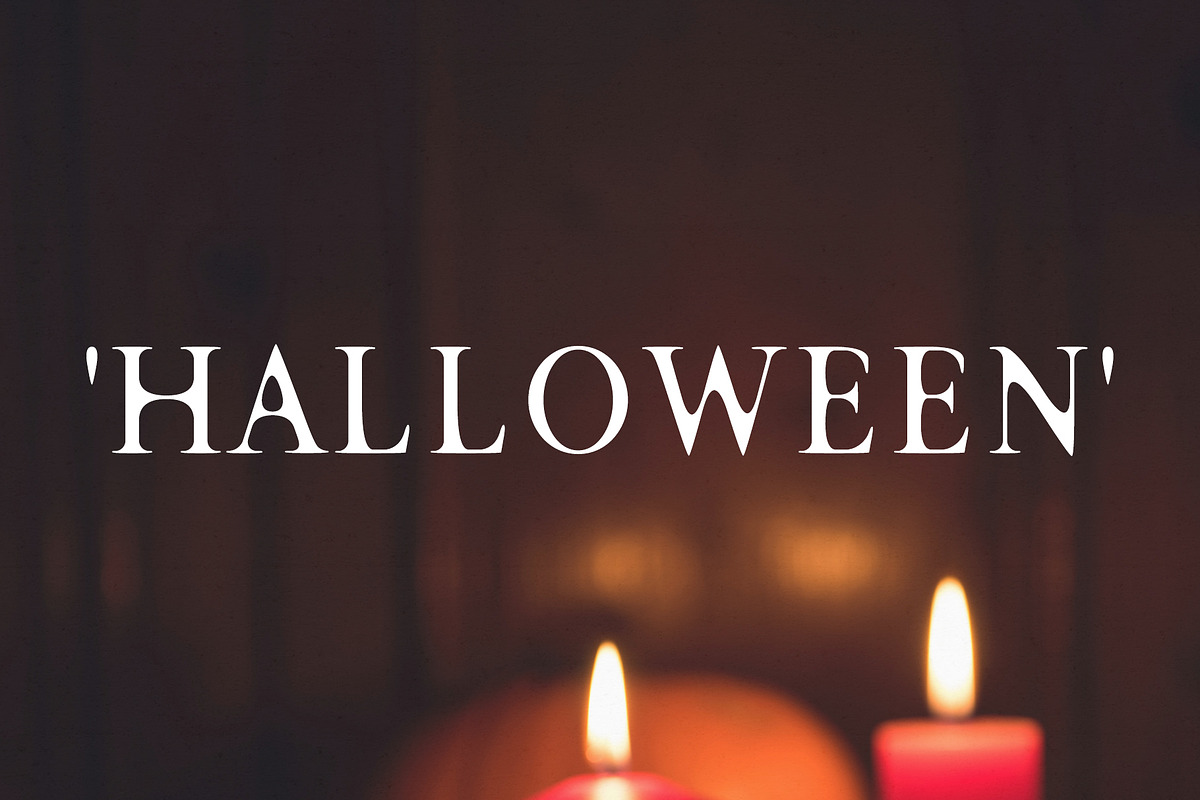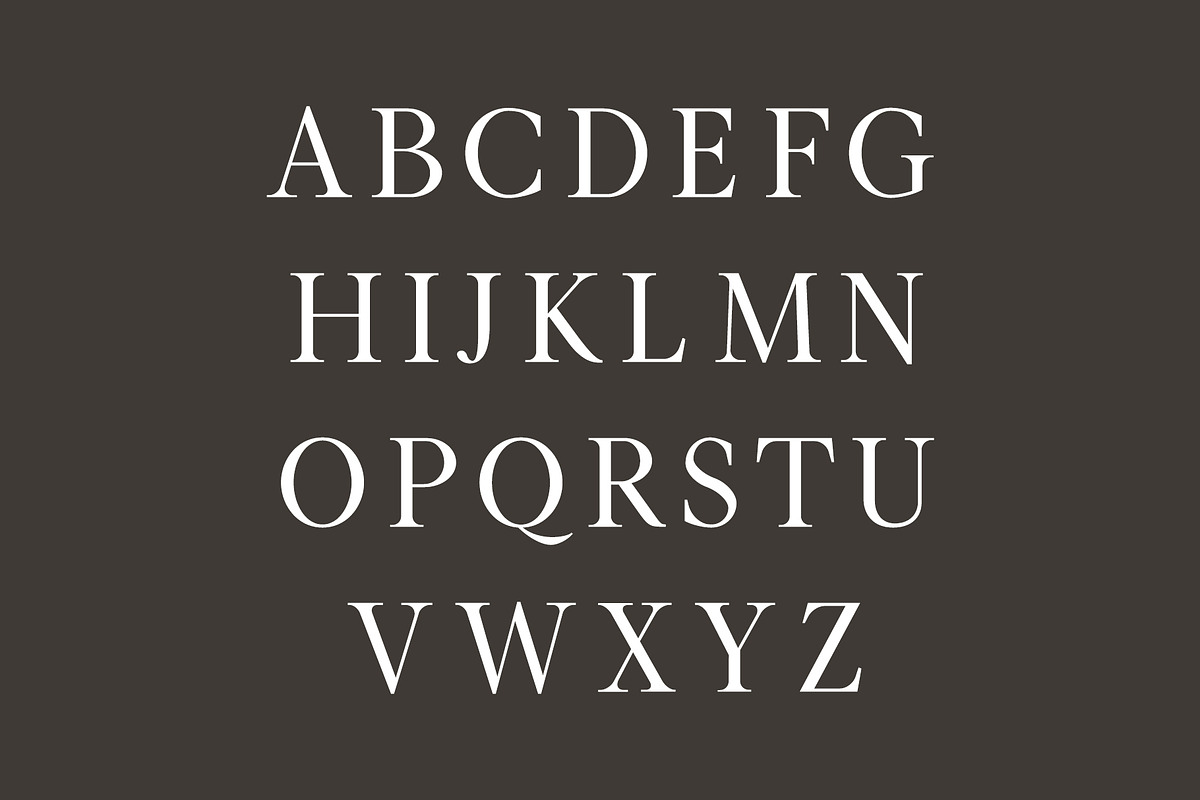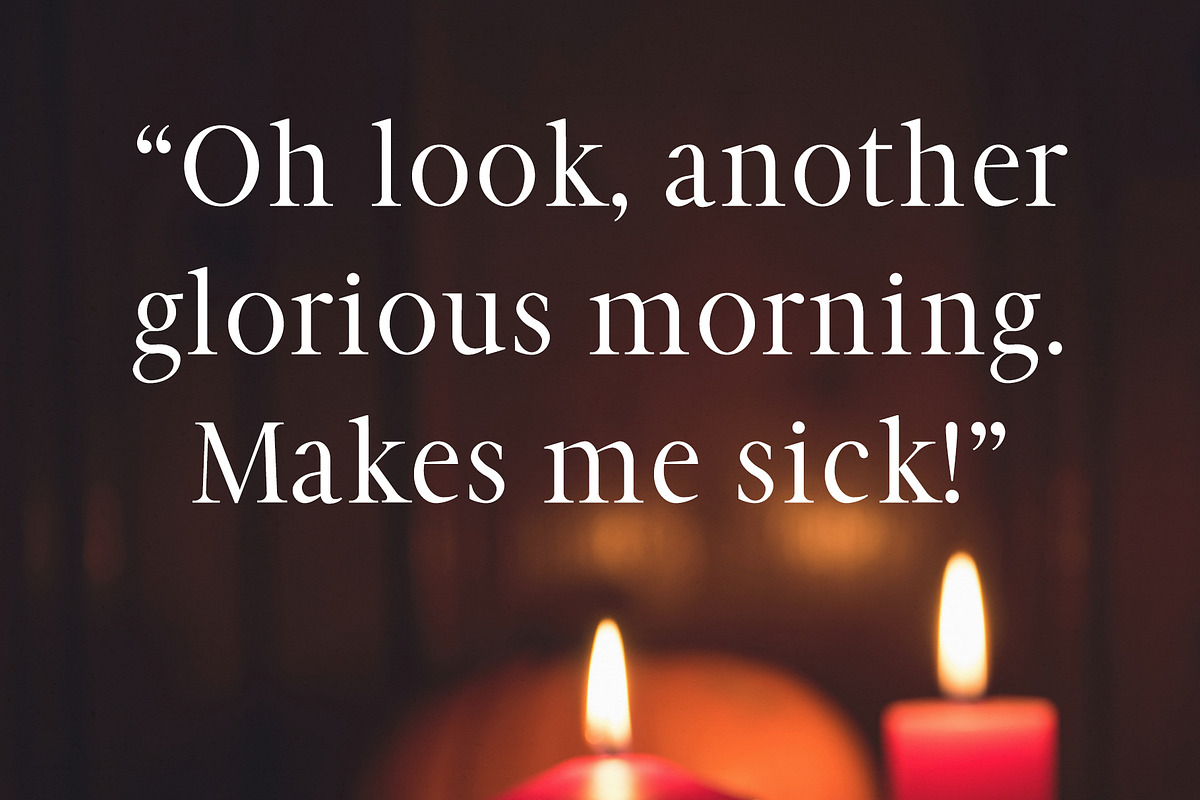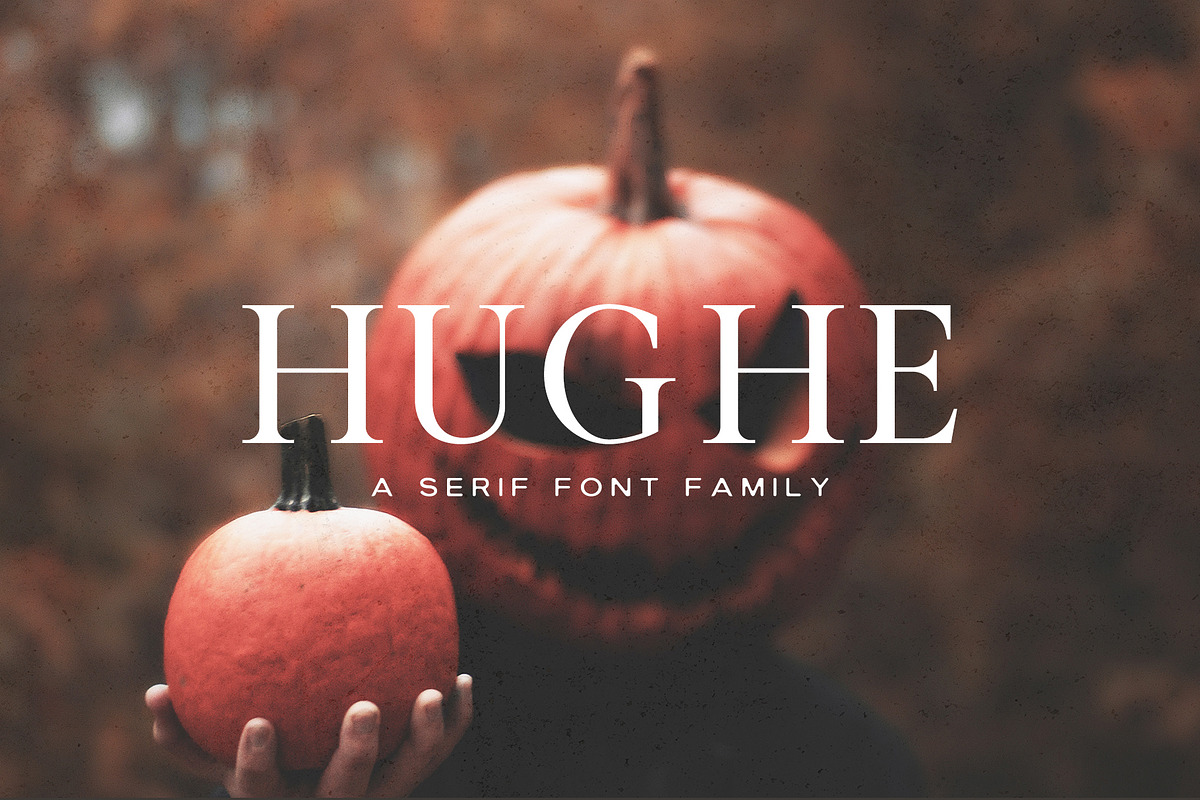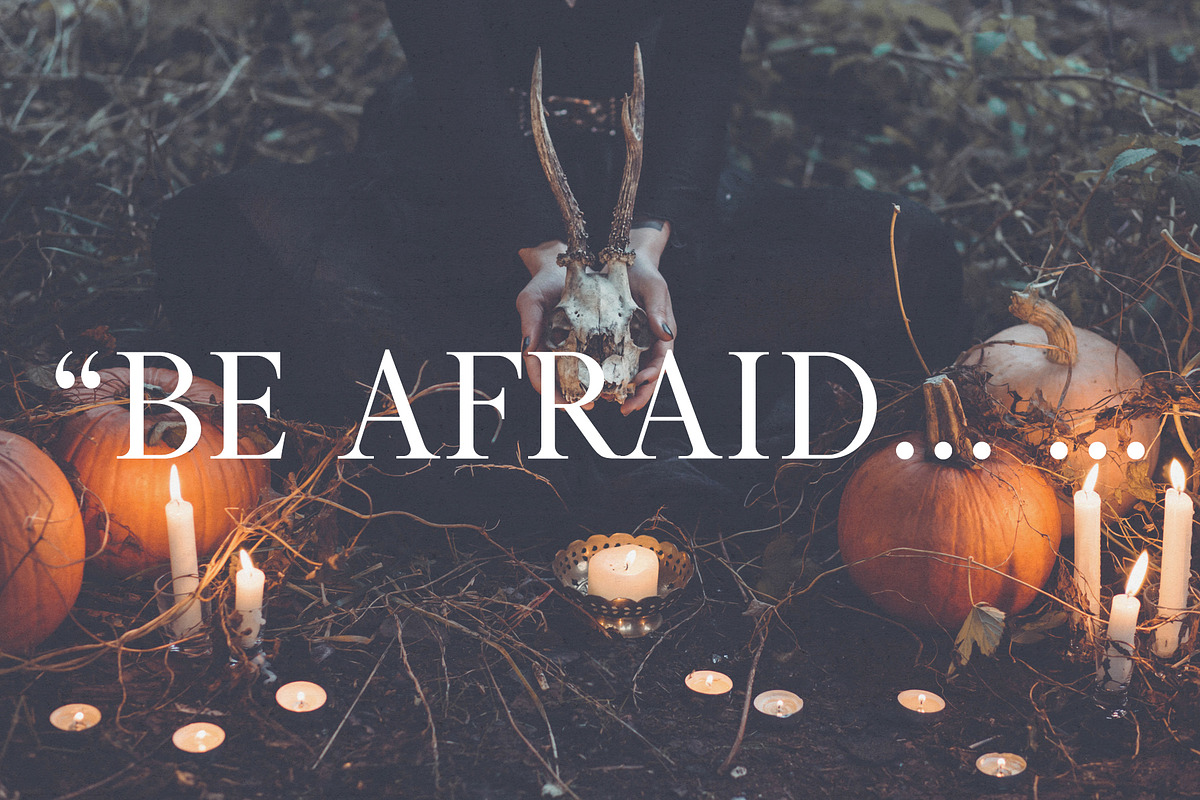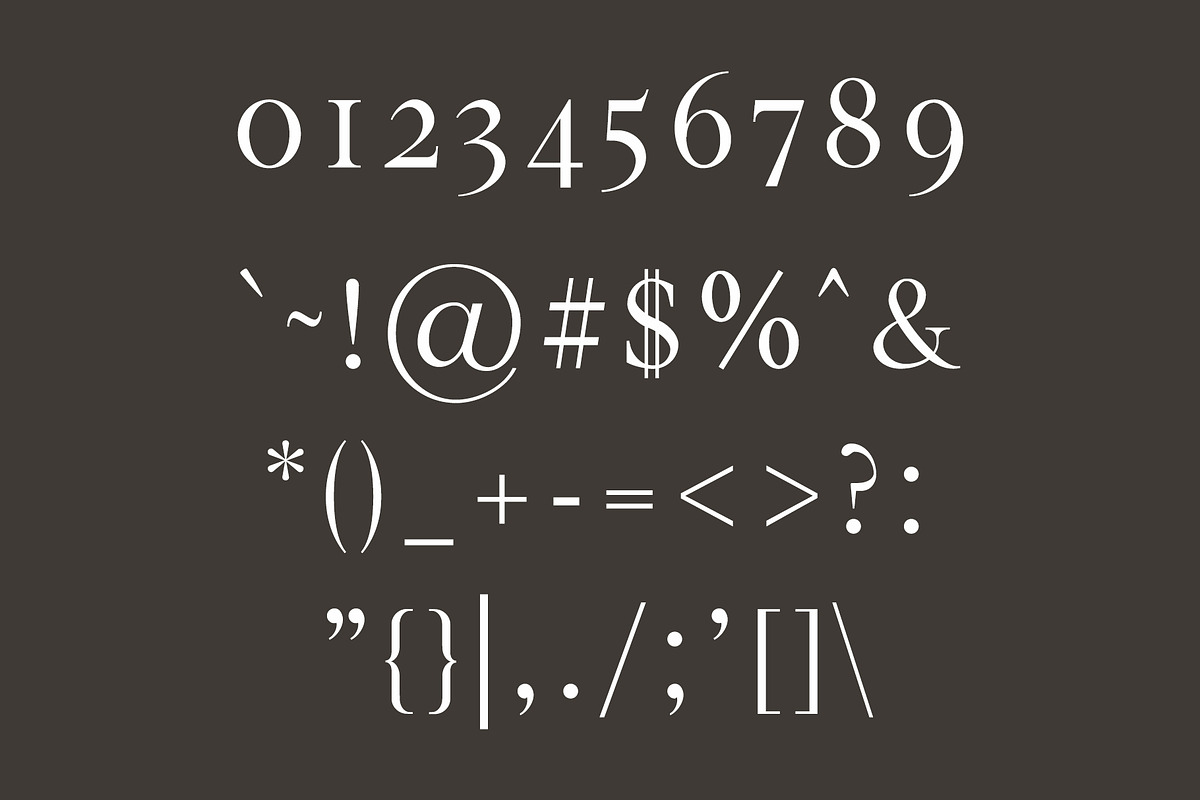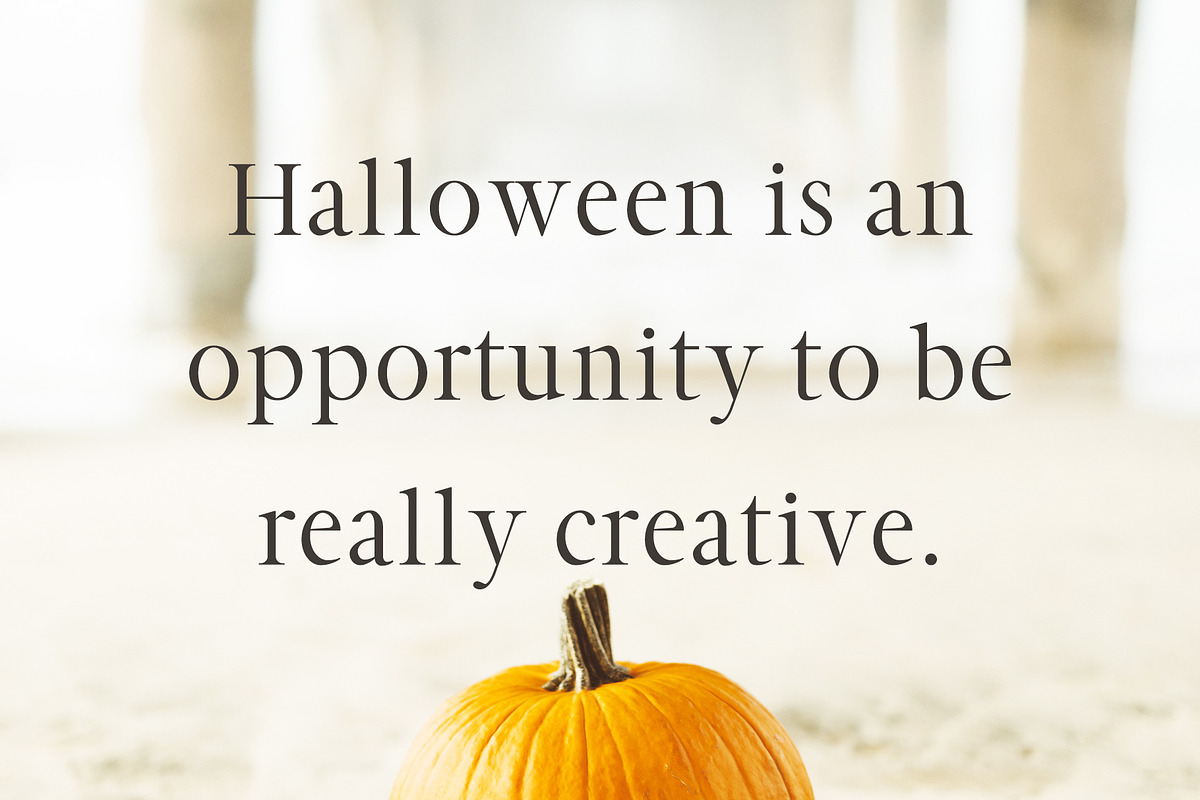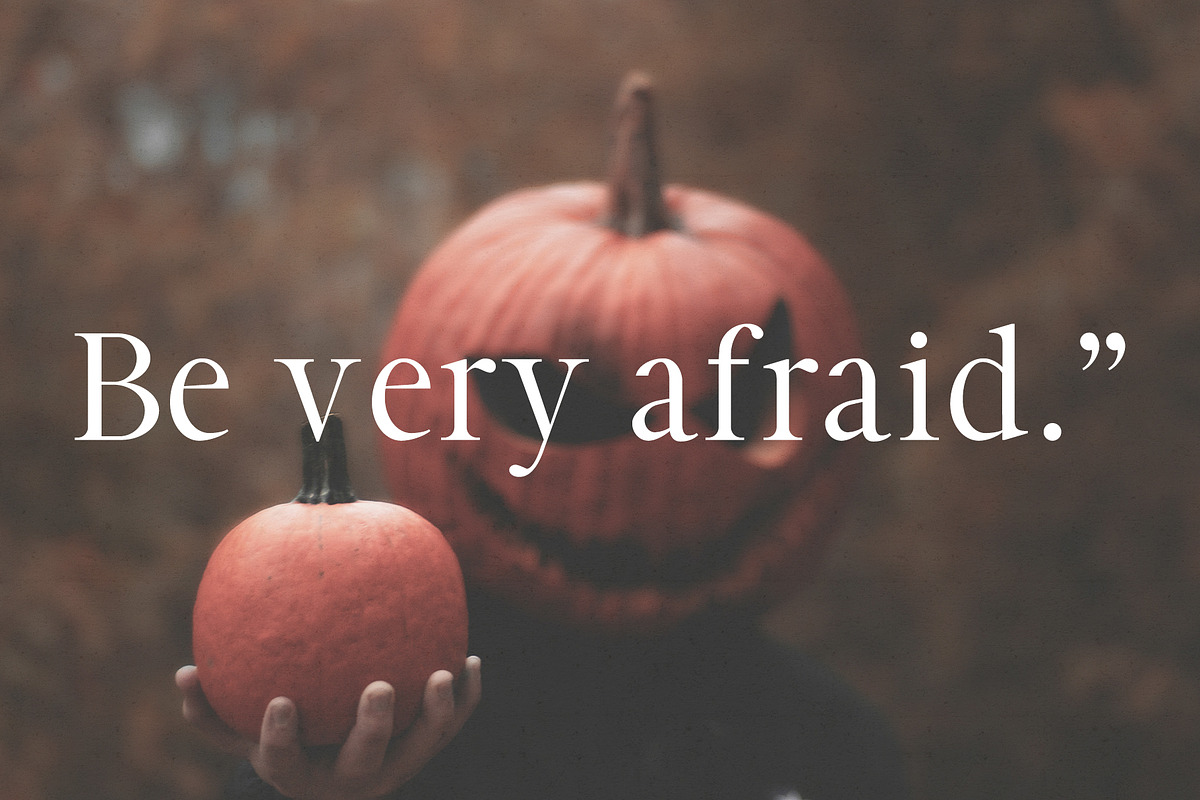
Hughe Serif Font Family
Hughe is an astonishing all-round serif typeface. It includes all basic glyphs and support multilingual characters. You can use it for your next handcrafted projects like: flyer, posters, banner, illustration, presentations, logo, horror, quotes, titles, magazines headings, web layouts, advertising, invitations, packaging design, CD cover, books, Christmas, Halloween and nearly any creative design.
Font Weight: Regular, Light, Round, Smooth and Bold
- It includes all basic glyphs and support multilingual characters.
- Font Weight: Regular, Light, Round, Smooth and Bold
- Hughe Light
- Hughe regular
- Hughe Bold
- Hughe Round
- Hughe Smooth
Why Hughe Serif Font Family is worth a look